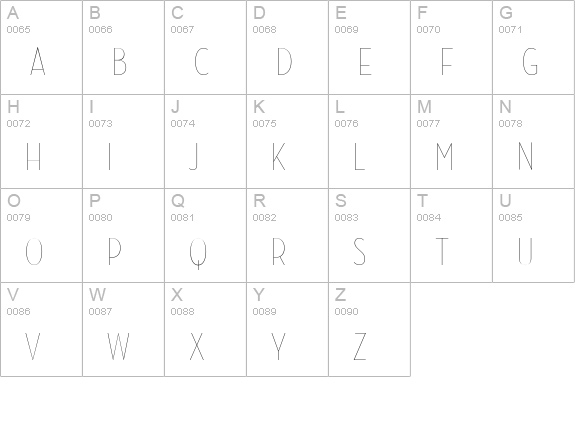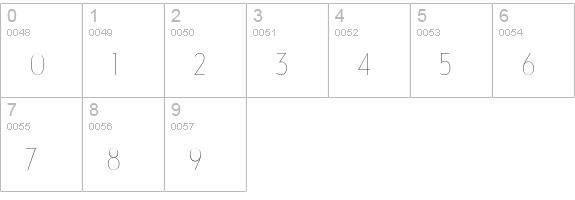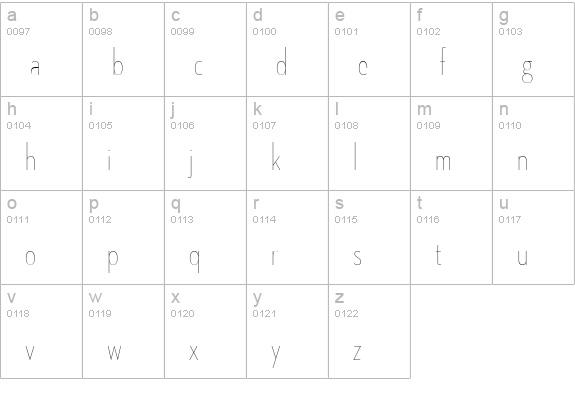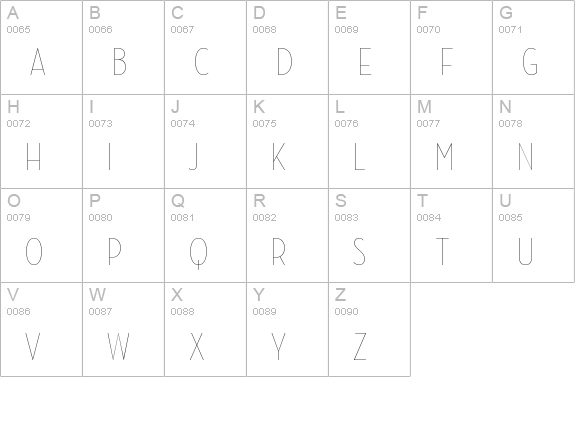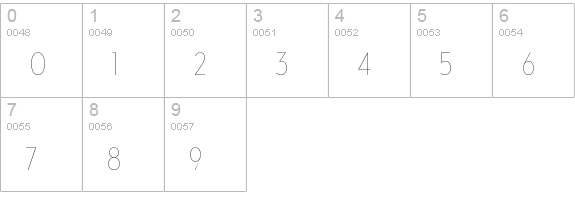
NeutrafaceCondensedPS-Thin is a delicate, low-contrast variant in the NeutrafaceCondensedPS typeface family \xE2\x80\x94 well suited to fashion editorial, minimal branding, and high-contrast display.
NeutrafaceCondensedPS-Thin font is a sleek and elegant typeface that exudes modernity and sophistication. Its thin strokes and condensed design make it ideal for a variety of design projects, from print materials to digital displays. The font's clean lines and minimalist aesthetic give it a timeless appeal that can elevate any design. Best of all, NeutrafaceCondensedPS-Thin font is available for free download at FontsMarket.com. Whether you're a designer looking to add a touch of refinement to your projects or a business owner in need of a polished font for branding materials, this font is a fantastic choice. Don't miss out on the opportunity to enhance your designs with this stylish and versatile typeface, available for free at FontsMarket.com.